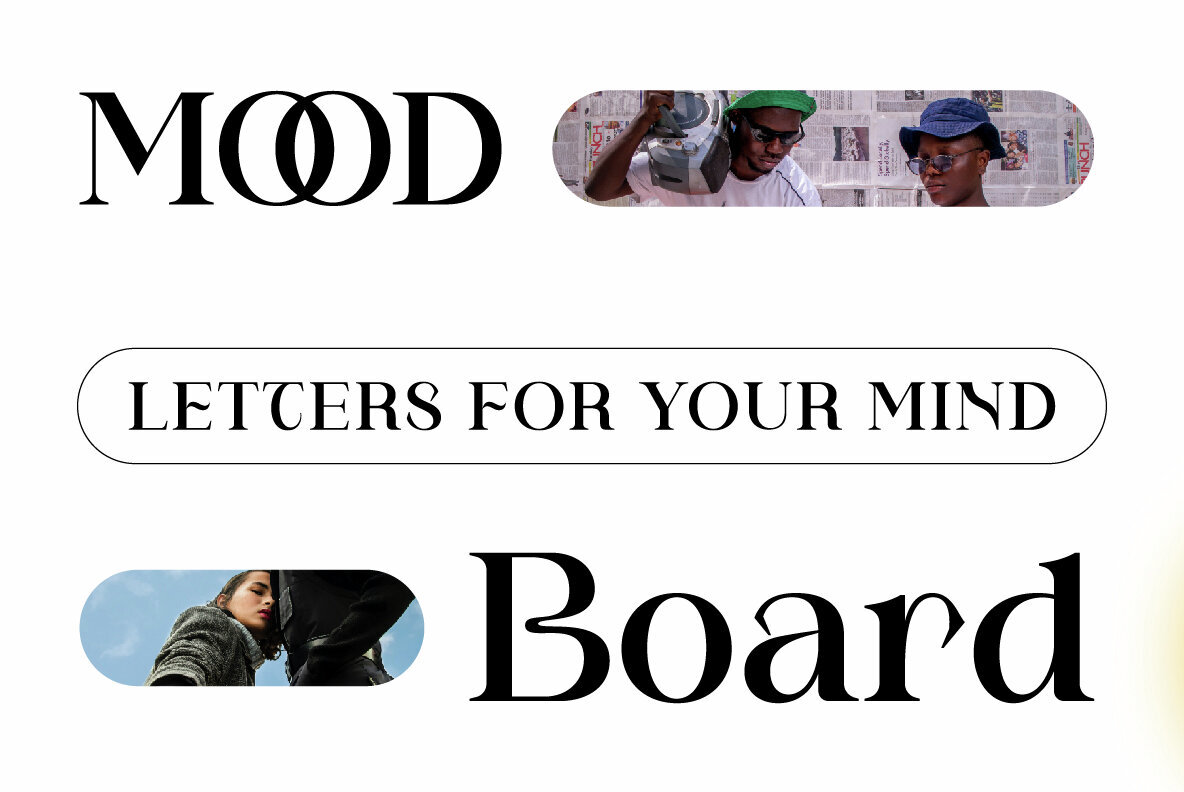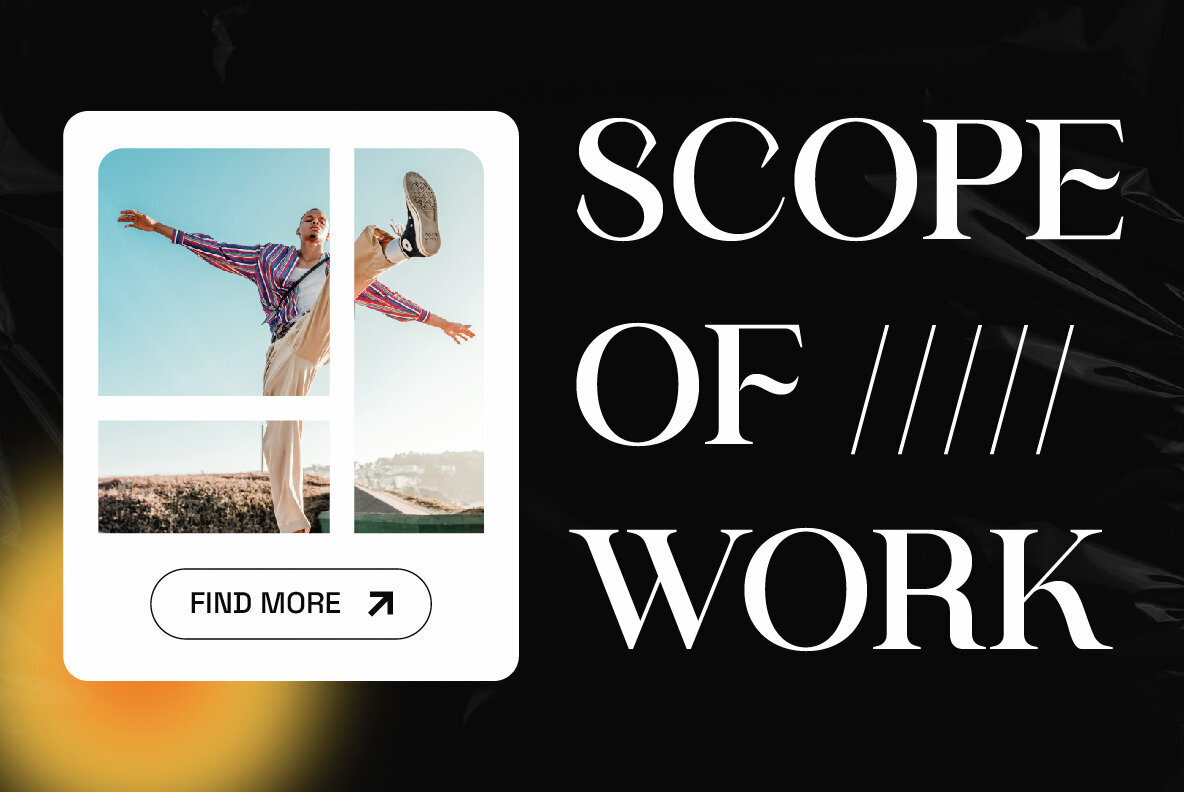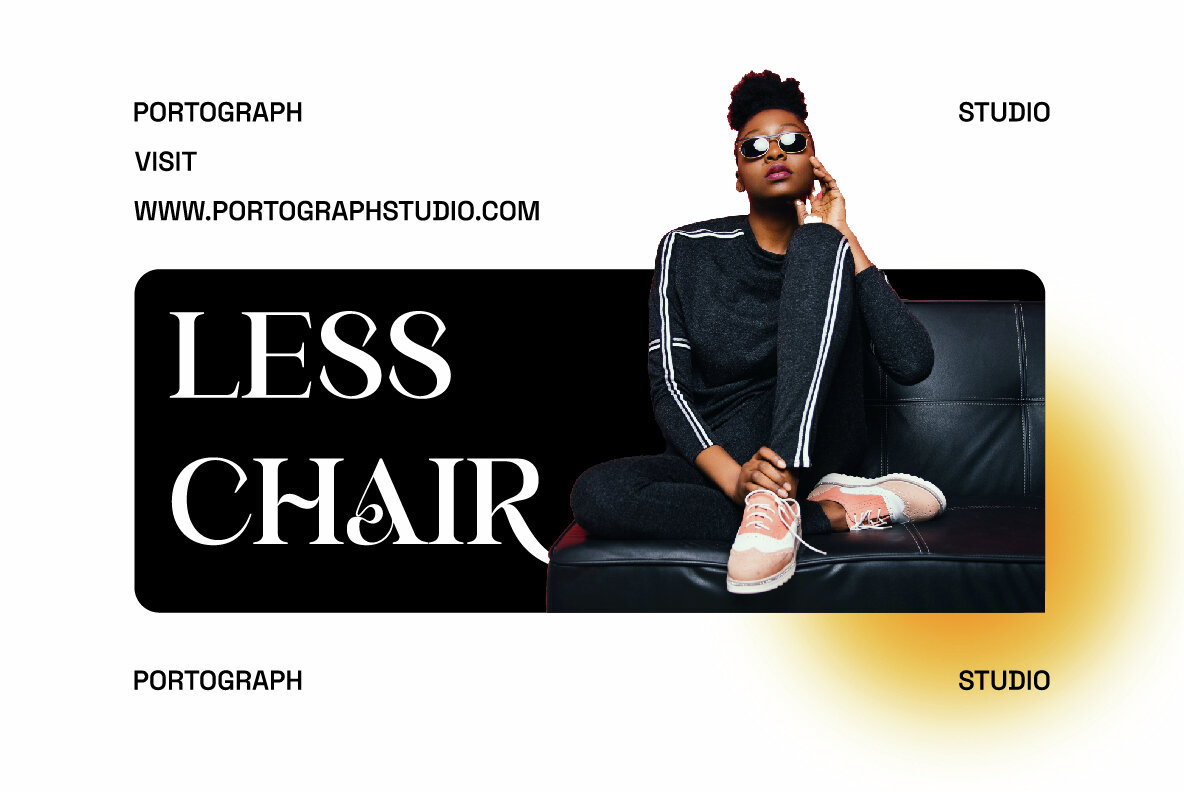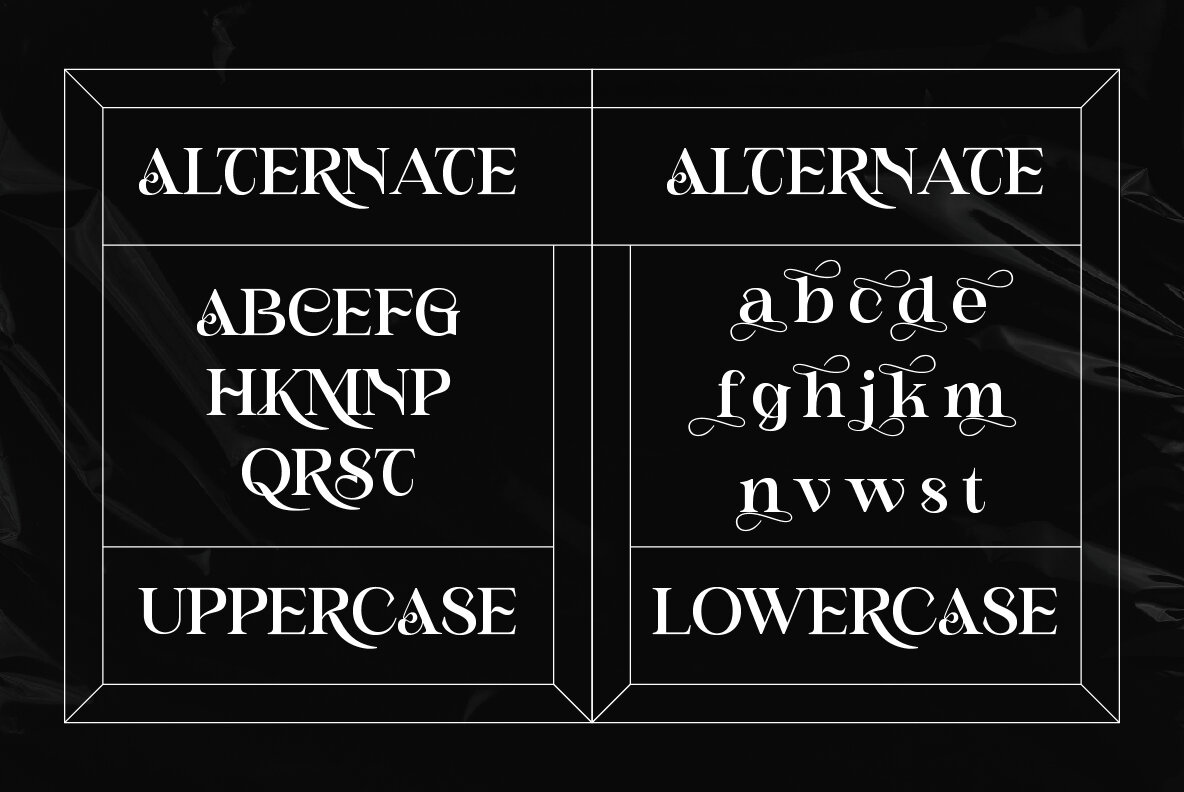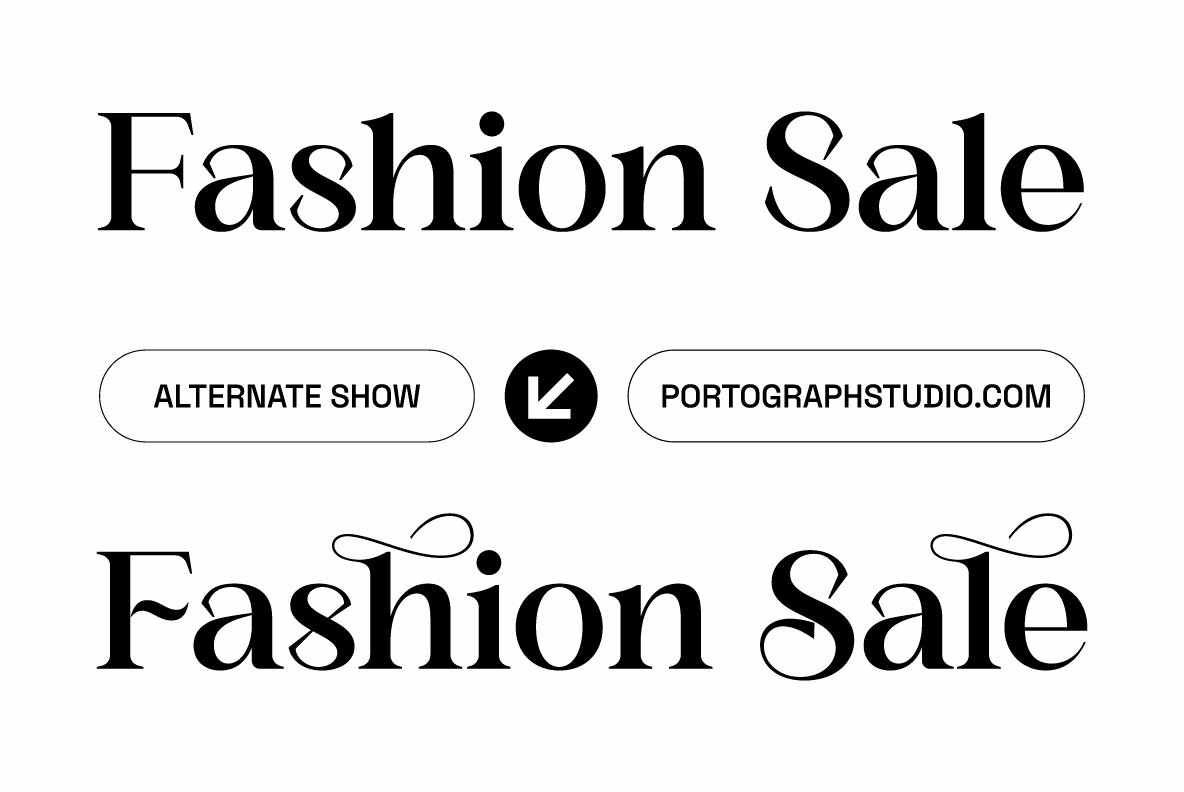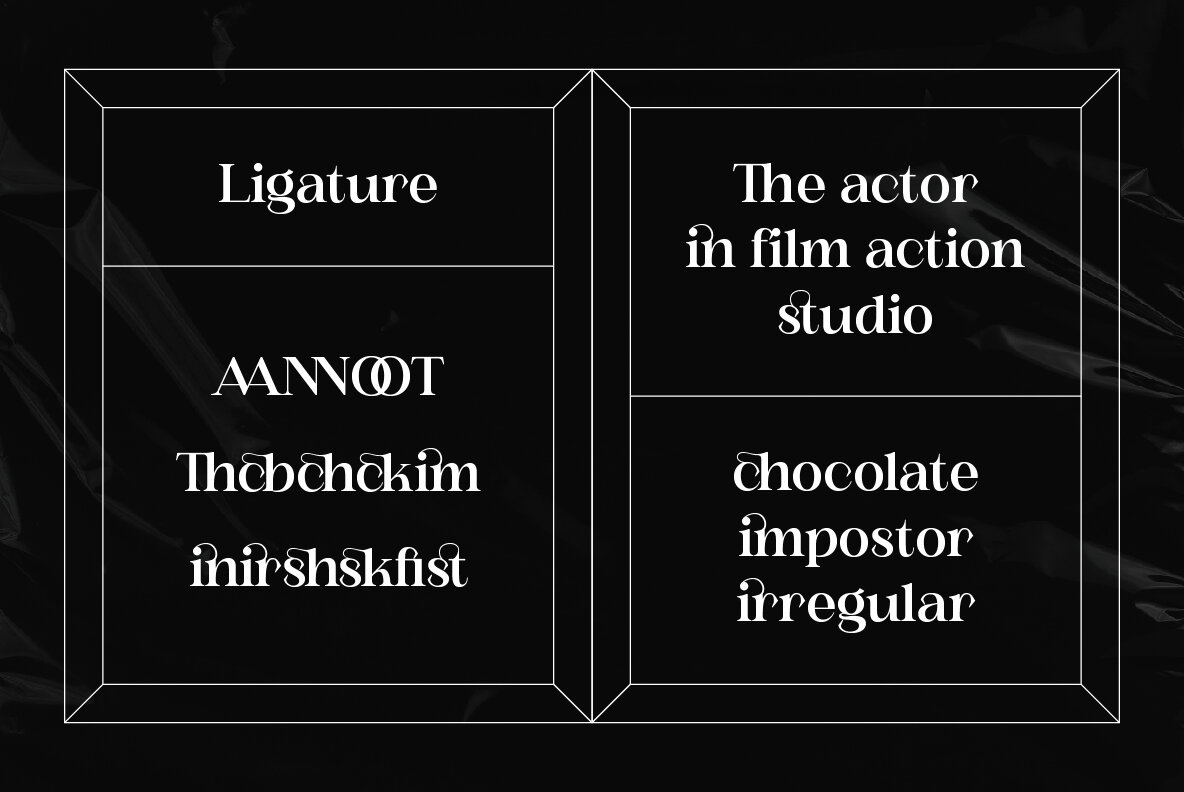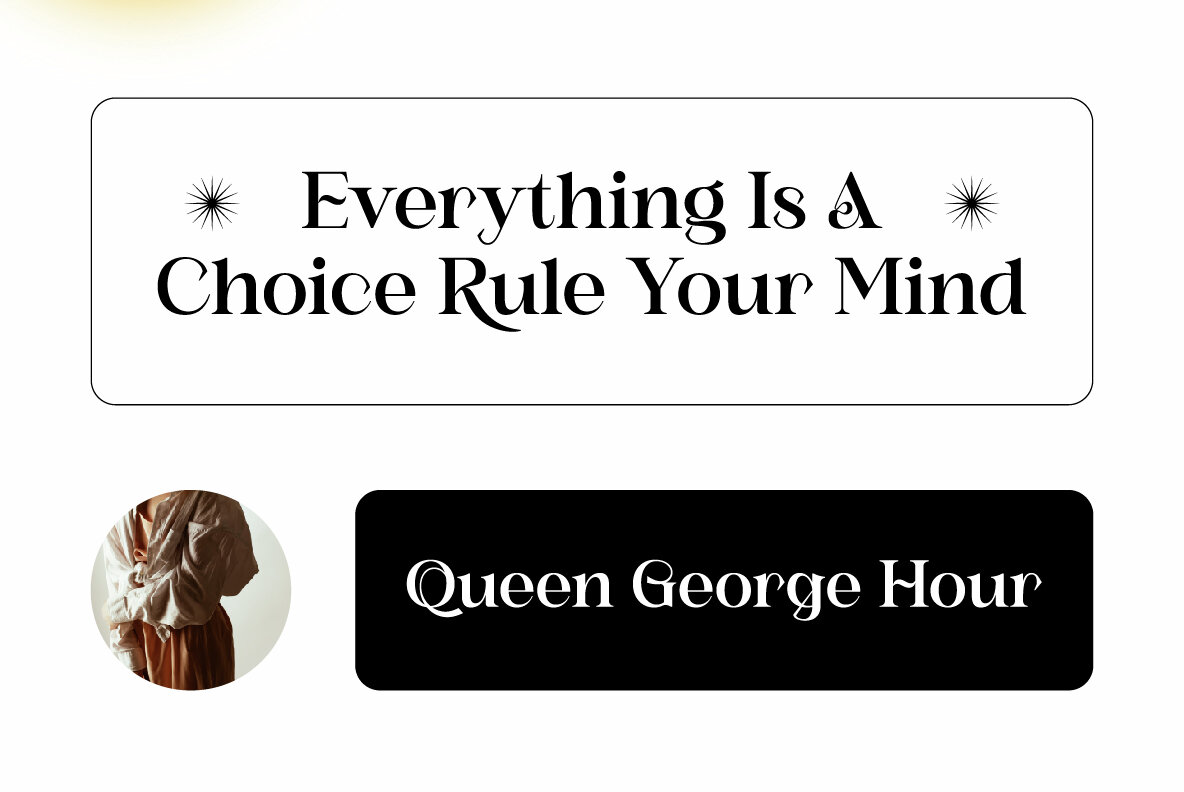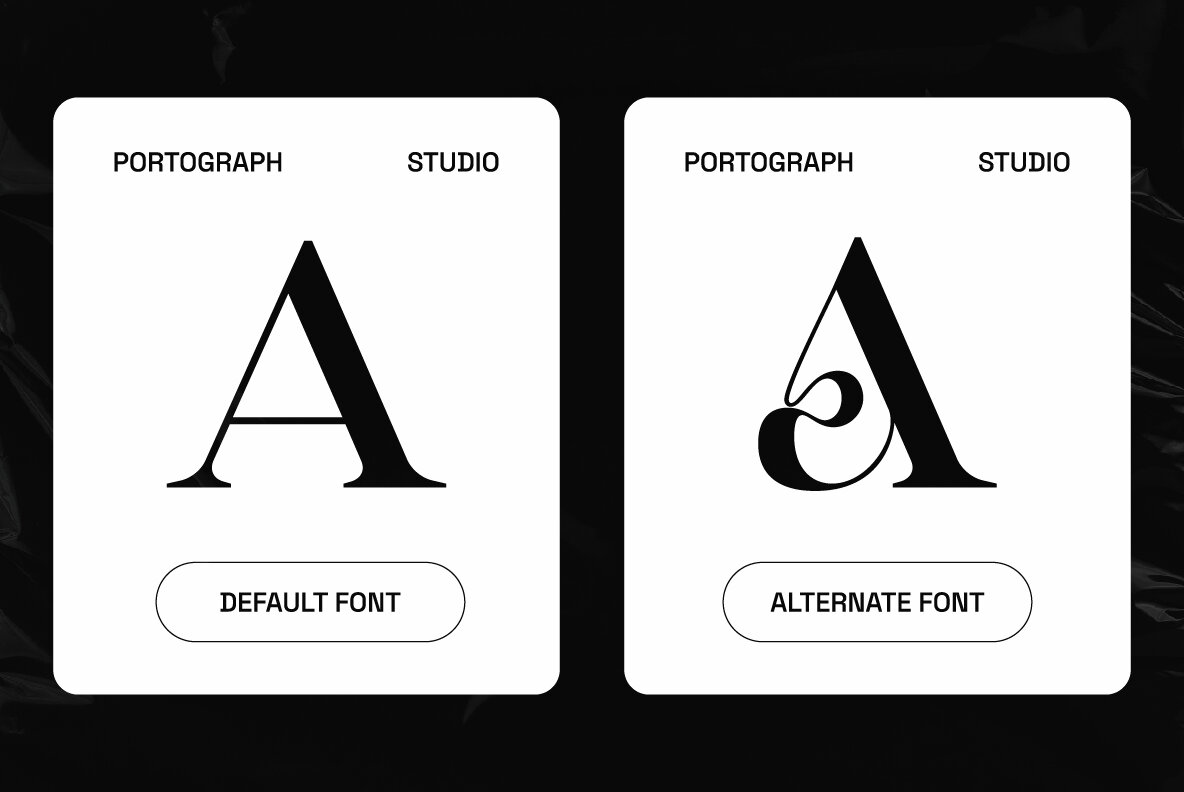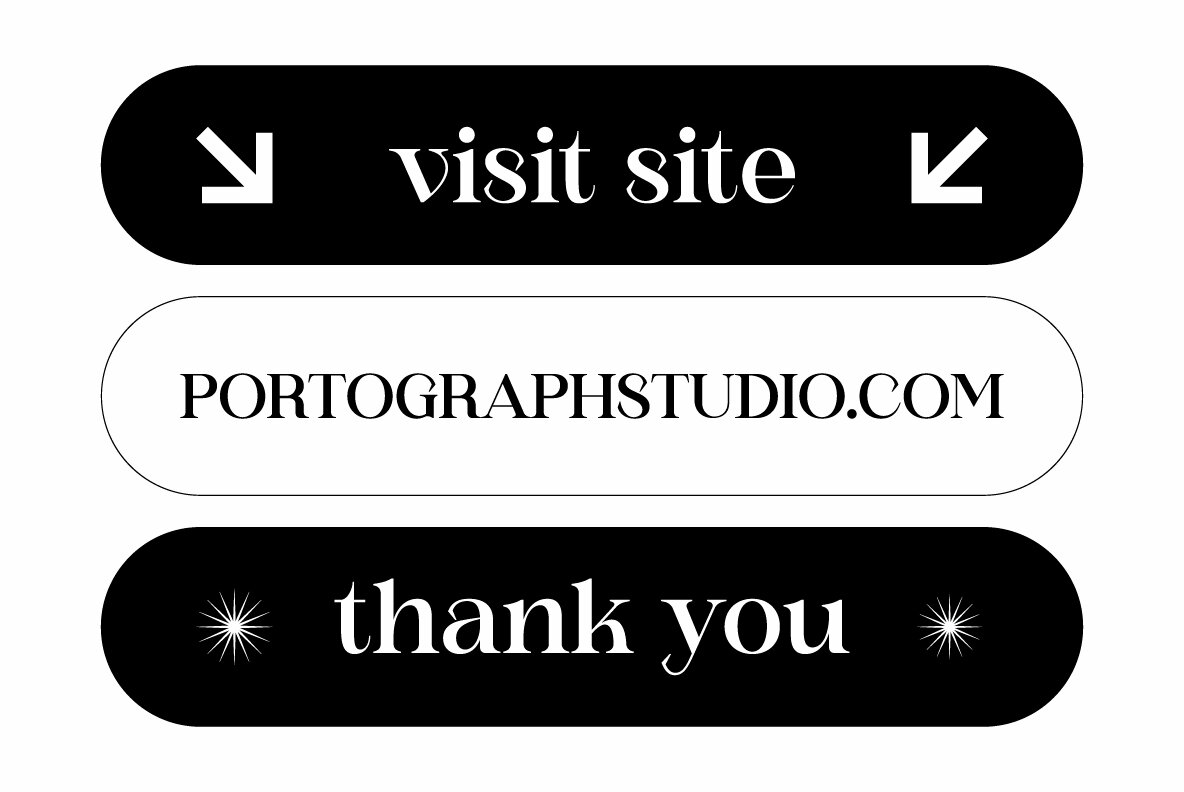
Shunsine Font
Shunsine Regular
Shunsine is a distinct and elegant display serif font. Its stylish alternates and ligatures make this font the perfect match for any project.